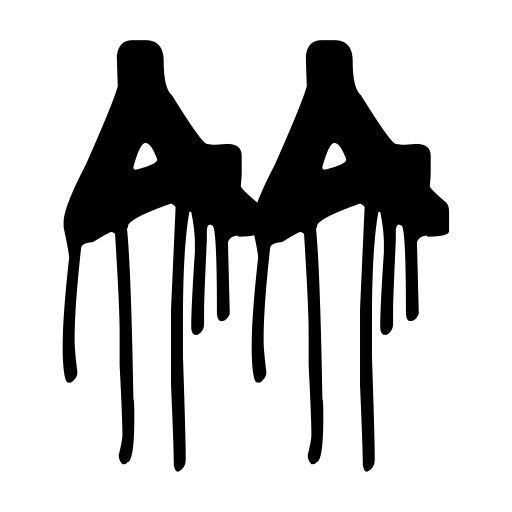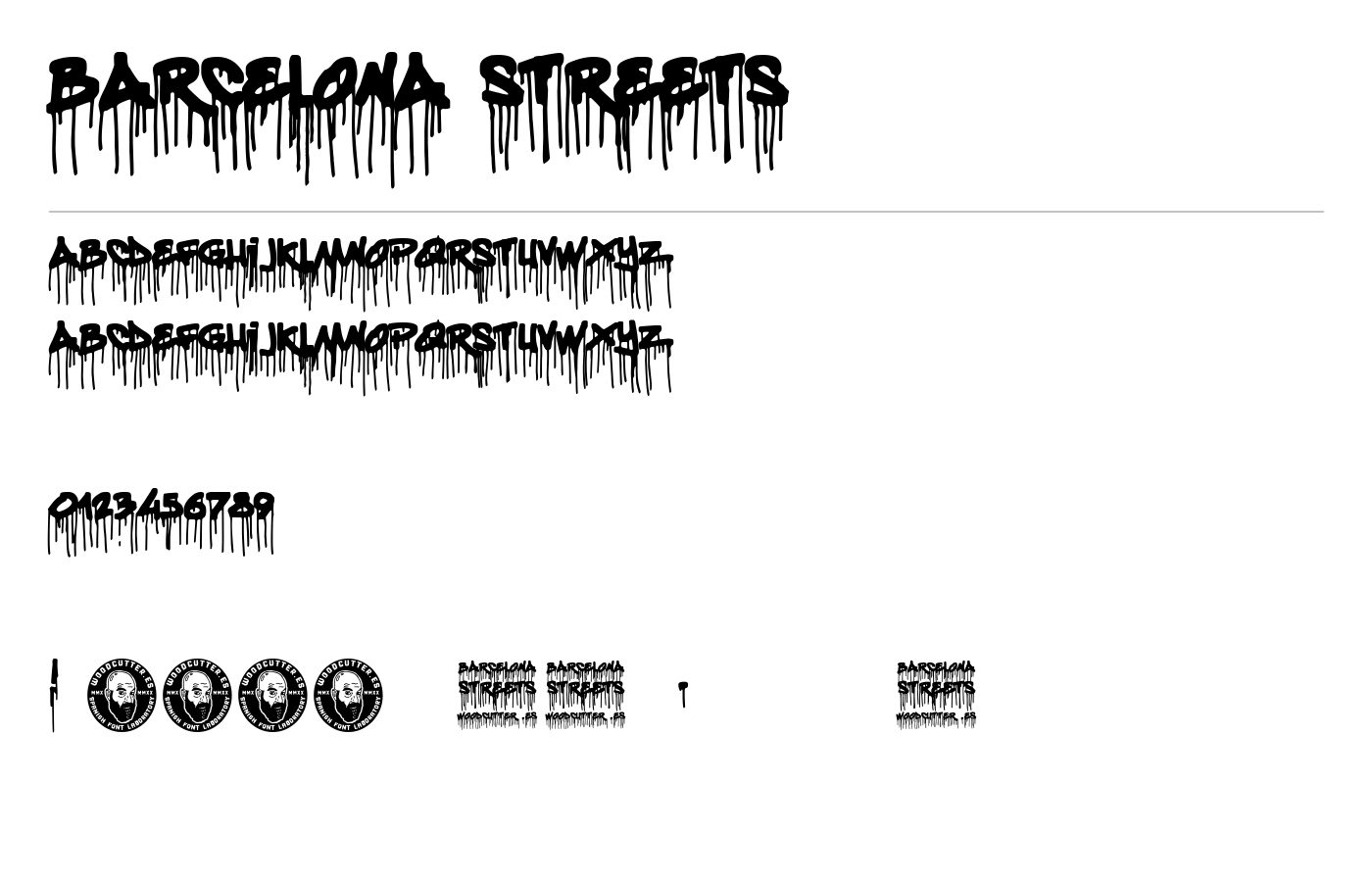
Barcelona Streets Font is a bold, playful display typeface inspired by urban graffiti art, featuring dripping ink effects that give it a raw, street-style vibe. Its irregular, hand-drawn letterforms with strong black strokes make it perfect for eye-catching headlines, posters, and creative branding that seek to convey an edgy, rebellious mood. This font works best in designs that want to capture the energy and authenticity of street culture.
Barcelona Streets Font
About Barcelona Streets Font